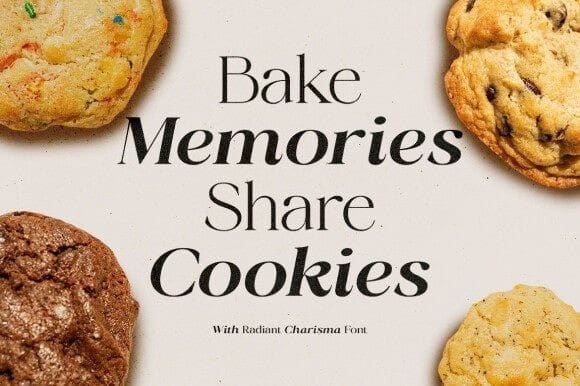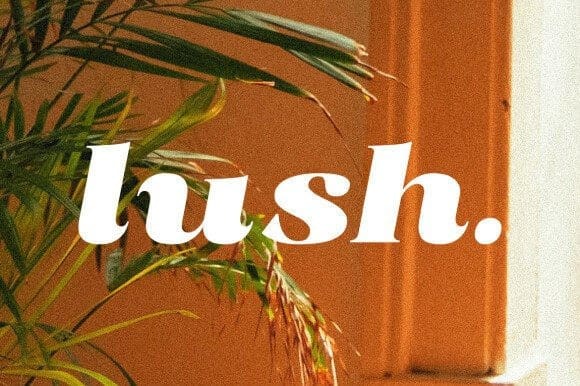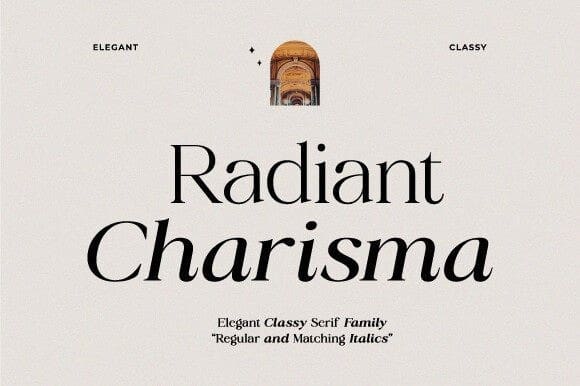
Radiant Charisma Font Family
Radiant Charisma Font Family, is an elegant and classy serif font. With 18 regular weights & matching italics. There are also static + variable files available. Suitable for branding, logo, title, poster, and more design needs.